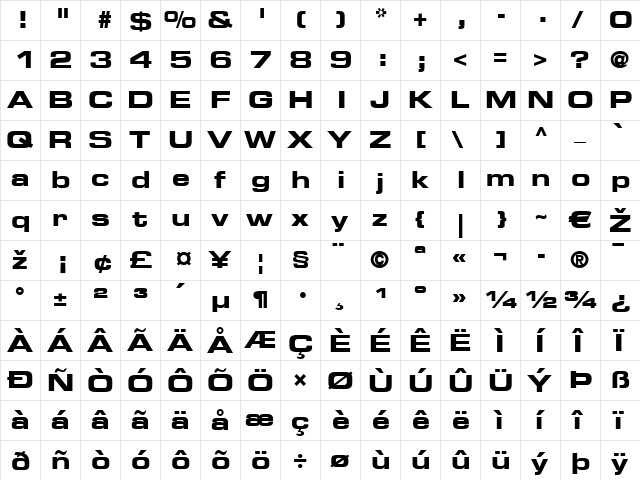
Eurostile LT ExtendedTwo Bold
Design Context for Eurostile LT ExtendedTwo Typeface
Eurostile LT ExtendedTwo takes a measured approach to typography — its balanced proportions and neutral character make it a reliable workhorse for both digital and print work. Its bold stroke weight gives it real presence on the page.